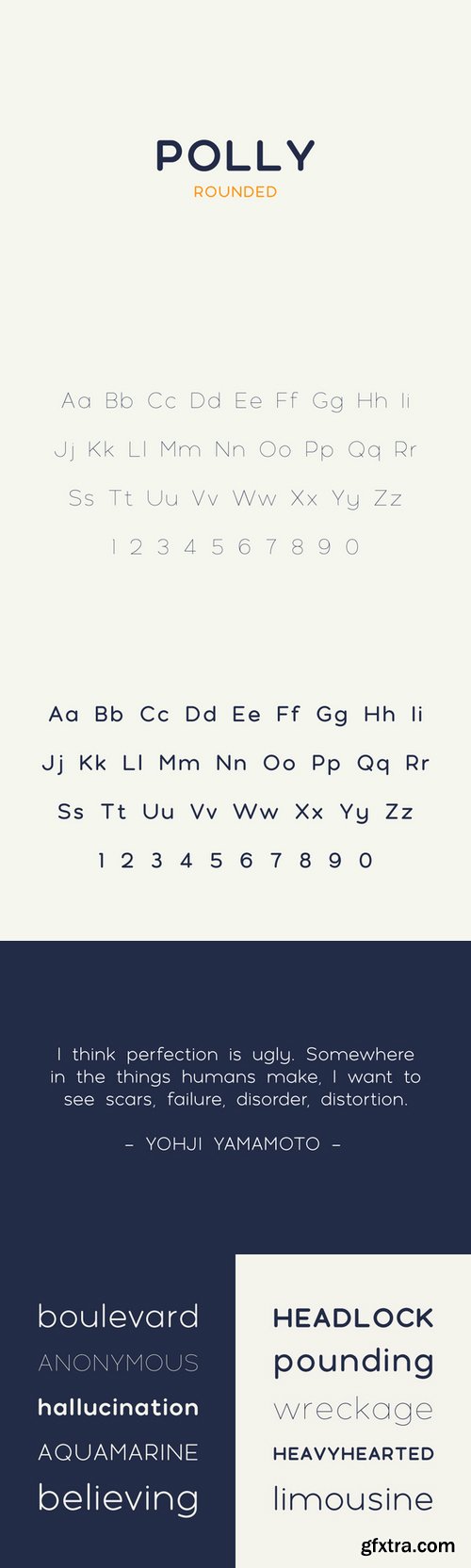
Polly v2 Introducing Polly, a new geometric sans. Polly has been updated and will continue with updates as additional characters and features are developed and improved. If anyone need any specific characters to jump the queue, leave a comment below. All future updated and improvements will be provided to existing customers Please see links below if you wish to purchase the individual weights.